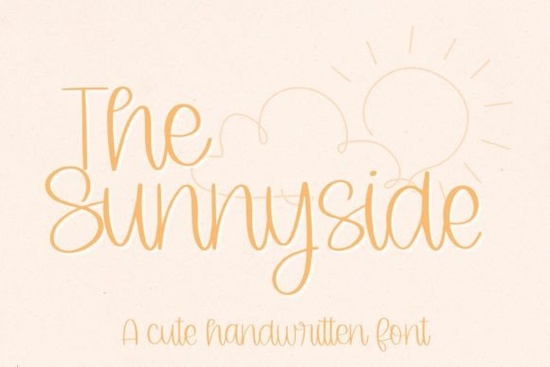
If you've been searching for a cute script font that works beautifully with your Cricut machine and looks hand-drawn without the hassle, The Sunnyside Font deserves a spot in your toolkit. This handwritten-style typeface combines elegant curves with smooth strokes, making it a solid choice for invitations, greeting cards, and personalized craft projects. Whether you sell on Etsy, design for clients, or just love making things at home, it's the kind of font you'll keep coming back to.
What Makes The Sunnyside Font Different From Other Script Fonts?
Not all script fonts are created equal. Some look too stiff. Others don't cut well on vinyl or paper. The Sunnyside strikes a balance between playful and polished. Its letterforms flow naturally, mimicking real handwriting while staying clean enough for professional-looking designs.
Unlike many decorative fonts that sacrifice readability for style, this one stays legible even at smaller sizes. That matters when you're working on:
- Greeting card headers and subtext
- Wedding and event invitations
- Personalized mugs, tumblers, and tote bags
- Social media graphics and quote posts
- Scrapbooking and journal layouts
Does It Work Well With Cricut and Cutting Machines?
Yes and that's one of the main reasons crafters love it. The Sunnyside was designed with Cricut compatibility in mind. The smooth, connected strokes mean fewer snag points and cleaner results, whether you're working with vinyl, cardstock, or heat transfer material.
If you've ever struggled with fonts that produce jagged edges or get caught mid-cut on your machine, you'll notice the difference right away. The letter connections are intentionally designed to stay smooth through the entire cutting process.
What Types of Projects Is This Font Best For?
This font shines in projects where you want a warm, personal, handcrafted feel. Think about anything where a handwritten note would feel more meaningful than a blocky, corporate typeface.
Here are some popular uses among crafters and small business owners:
- Wedding stationery save-the-dates, menus, and place cards
- Small business branding logo concepts, packaging labels, and thank-you cards
- Print-on-demand products t-shirt designs, poster quotes, and sticker sheets
- Digital products planner inserts, printable wall art, and social media templates
It also works nicely for sublimation printing, which is becoming more popular among home-based craft businesses. The clean curves hold up well across different print methods.
How Does It Compare to Other Handwritten Fonts?
If you already own a few script fonts, you might wonder how this one fits in. The Sunnyside leans toward the cute and casual side, which sets it apart from more formal calligraphy styles. It pairs well with clean sans-serif fonts for contrast in layouts and branding.
Can Beginners Use This Font Easily?
Absolutely. You don't need advanced design skills to work with this typeface. It installs like any standard font on both Windows and Mac. Once installed, it shows up in your design software whether that's Cricut Design Space, Canva, Adobe Illustrator, or Silhouette Studio just like any other font on your system.
Quick tips for getting started:
- Use it at larger sizes (24pt+) for the best visual impact
- Pair it with a simple sans-serif for body text contrast
- Adjust letter spacing if you're cutting vinyl tighter spacing can cause issues
- Test cut on a small scrap before committing to a full project
- Weld letters in Cricut Design Space to keep cursive connections intact
Is This Font Worth Adding to Your Collection?
If you regularly create projects that call for a handwritten, charming aesthetic, then yes. It fills a specific niche cute but not childish, elegant but not overly formal. It's the kind of font you'll reach for again and again for cards, labels, and personalized gifts.